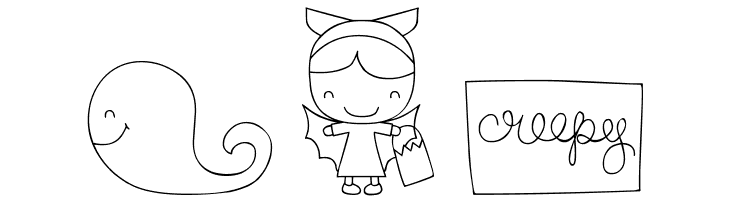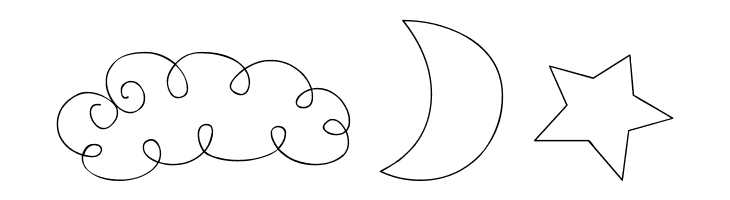
• MR.MONSTAR
A bold, dripping font perfect for spooky or playful themes.
• MTF Becki
A playful, handwritten font with a casual and friendly appearance.
• MTF Chubb
A bold, rounded font with a playful and friendly appearance.
• MTF Cupcake
A playful, handwritten font with smooth, flowing lines and a whimsical style.
• MTF Flowrites
A delicate, handwritten font with a light, airy feel and elegant slant.
• MTF Hello Again
A playful, hand-drawn font with bold, rounded characters.
• MTF Magical Marilyn
A playful, handwritten font with whimsical, informal characteristics.
• MTF Megan
A playful, handwritten font with thin, flowing strokes and a casual style.
• MTF Melissa
A casual, handwritten font with fluid strokes and a personal touch.
• MTF Memory
An ornate script font with elaborate swirls and vintage charm.
• MTF Sweet Dings
A playful font of sweet-themed dingbats with whimsical dessert and fruit icons.
• MTF Sweet Halloween Dings
A playful dingbat font with cute Halloween-themed illustrations.
• MTF Sweet Nature Dings
A whimsical dingbat font with nature-themed illustrations.
• MTF Sweet Sky Dings
A whimsical, sky-themed dingbat font with playful and airy designs.